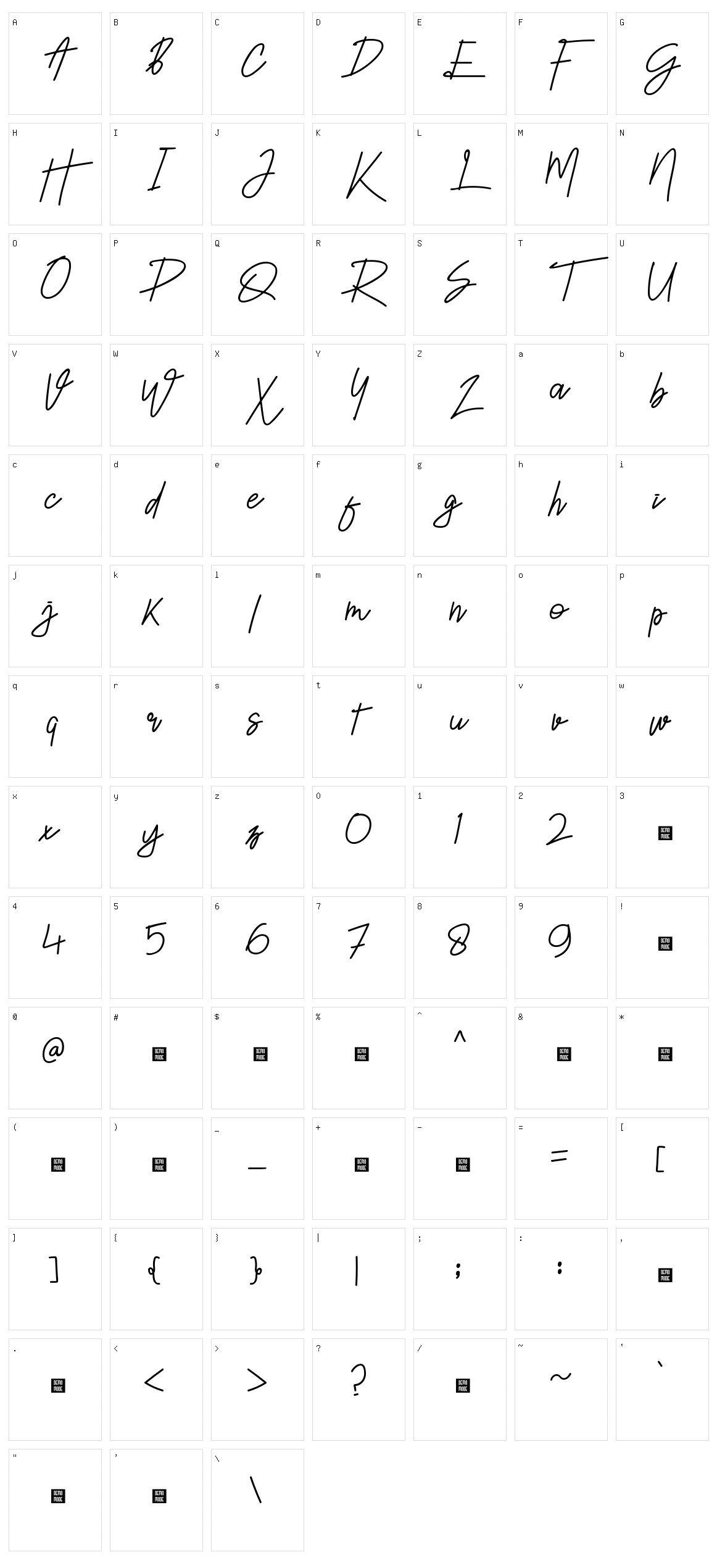
The free font Lomesty is carefully designed by Seeyouletter std, showcasing a thoughtful balance of creativity and usability and falls under the Script font style. When you download the ZIP file, it contains only 32.82 KB of font files, making it lightweight and quick to download. Please review the license details below to understand permitted usage and distribution rights. If license information is not available, we recommend using this font for personal projects only or contacting the author directly for commercial usage permissions.